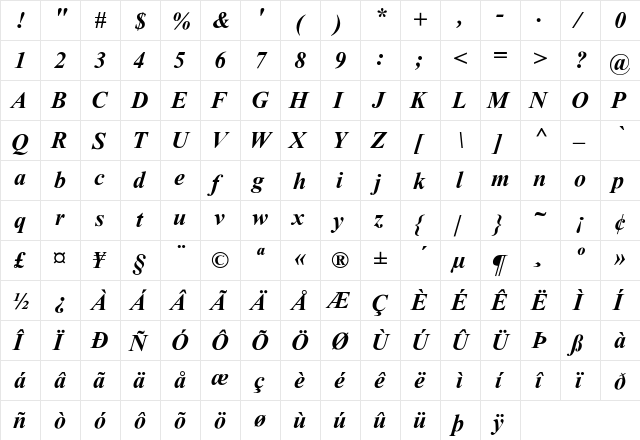
Dabbington Bold Italic Regular
Design Context for Dabbington Bold Italic Typeface
Dabbington Bold Italic is a composed and adaptable typeface that performs quietly and consistently across a wide range of design contexts. The slanted form adds forward momentum and visual energy. Its bold stroke weight gives it real presence on the page.